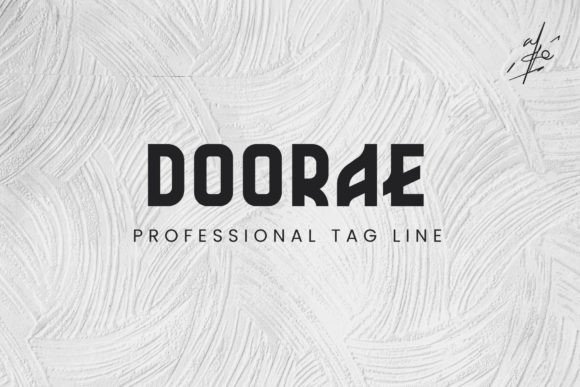
Introducing Doorae Font - The Epitome of Modern Logo Design
In the realm of branding, your logo holds the power to make a profound impact on your audience, evoking emotions, establishing trust, and leaving a lasting impression. Doorae Font, a meticulously crafted sans-serif masterpiece, emerges as the ultimate choice for designers and businesses seeking to create logos that resonate and captivate.
Unleash the Boldness, Embrace the Strength
Doorae Font exudes an aura of boldness and strength, its characters standing tall and proud, commanding attention with their unwavering presence. Each stroke is meticulously drawn, embodying the essence of confidence and professionalism, making it the perfect font for businesses looking to make a statement and leave an unforgettable mark.
Crafted for Logo Perfection, Designed for Impact
Doorae Font's unique design aesthetic is tailored specifically for logo creation. Its bold and striking appearance ensures maximum impact, even at small sizes, making it ideal for business cards, letterheads, and website headers. Its strong presence cuts through the noise, ensuring your logo stands out from the crowd and captures the attention of your target audience.
The Perfect Harmony, A Symphony of Visual Elegance
Doorae Font's harmonious proportions lend an air of sophistication and elegance to your logos. Its carefully balanced letterforms create a visually pleasing aesthetic, ensuring that your logo exudes professionalism and attention to detail. Whether you're crafting a logo for a corporate giant or a budding startup, Doorae Font elevates your designs with an unmatched level of visual appeal.
A Font for the Modern Age, A Reflection of Your Brand's Essence
In today's fast-paced digital world, your logo is often the first point of contact with potential customers. Doorae Font, with its modern and contemporary style, perfectly encapsulates the spirit of the times. Its clean lines and sharp angles align seamlessly with the aesthetics of modern branding, ensuring that your logo reflects the forward-thinking and innovative nature of your brand.
Experience the Doorae Difference, Transform Your Brand Identity
Doorae Font is more than just a font; it's an investment in your brand's visual identity. Its bold and striking appearance, combined with its suitability for logo design, empowers you to create logos that command attention, convey professionalism, and leave a lasting impression on your audience. Embrace the power of Doorae Font and unlock the true potential of your brand's logo.